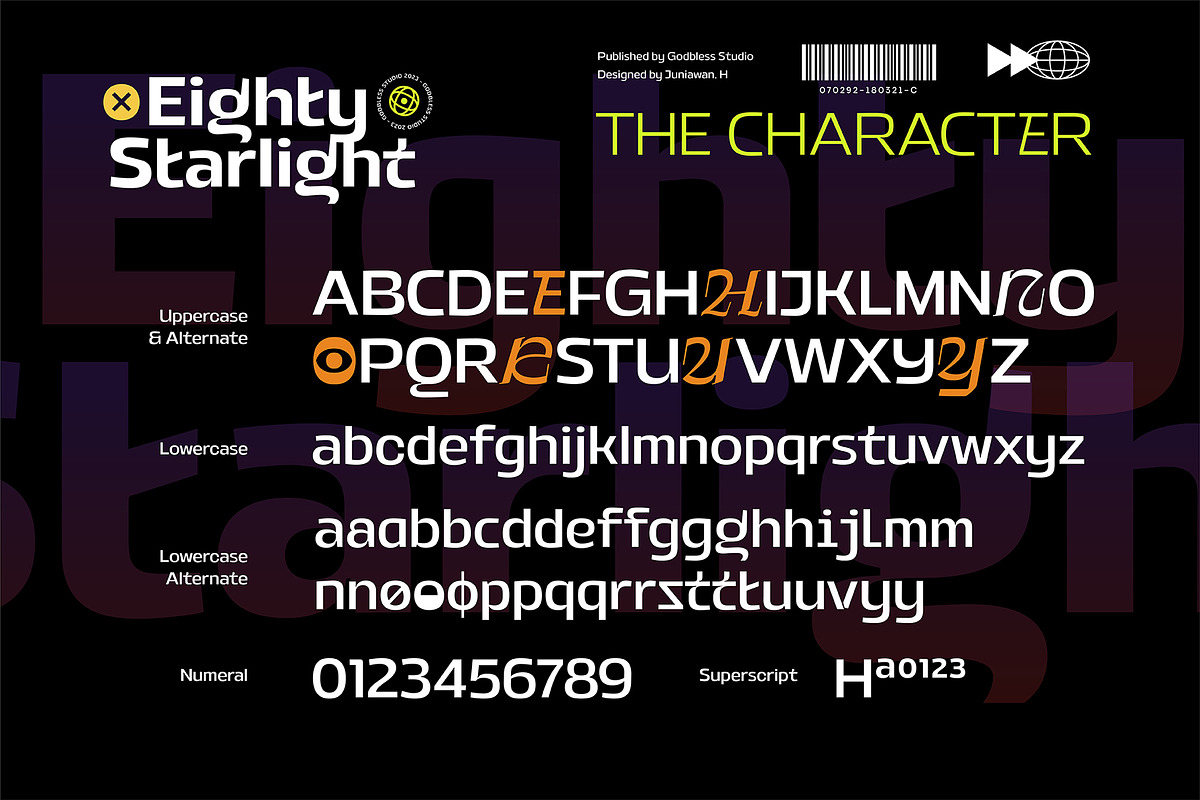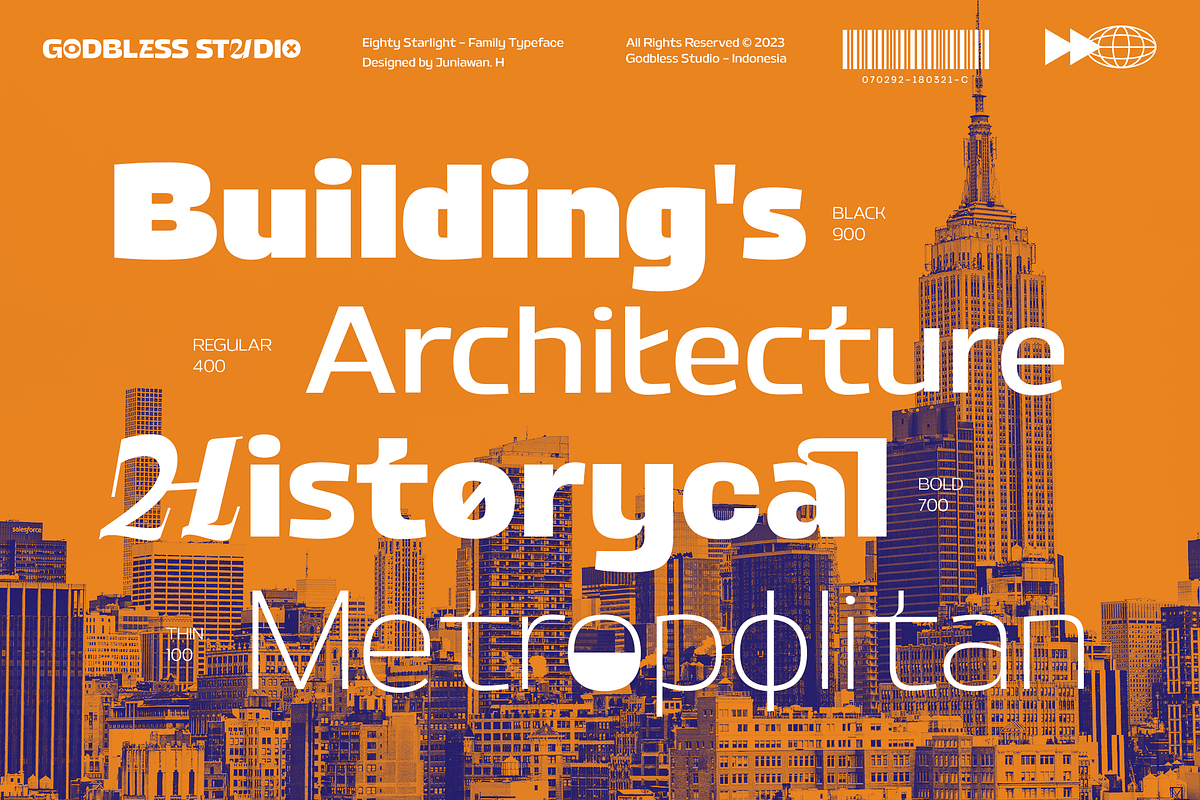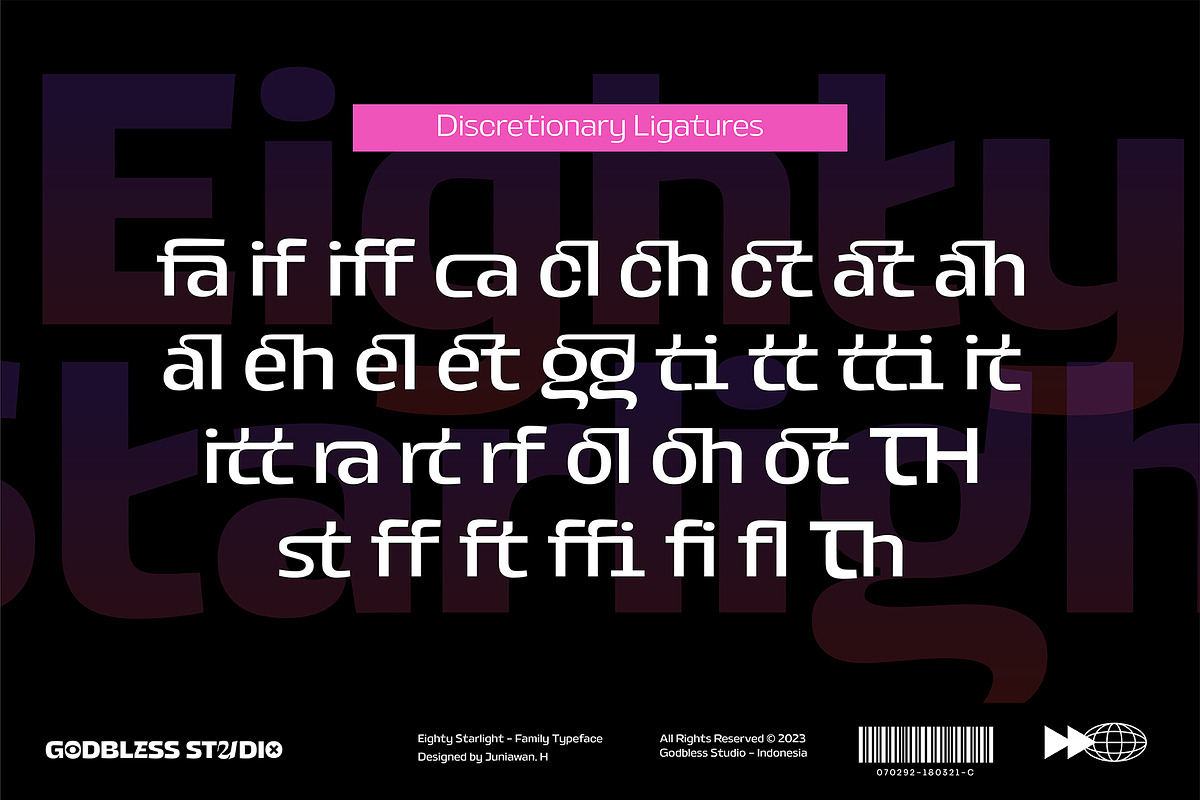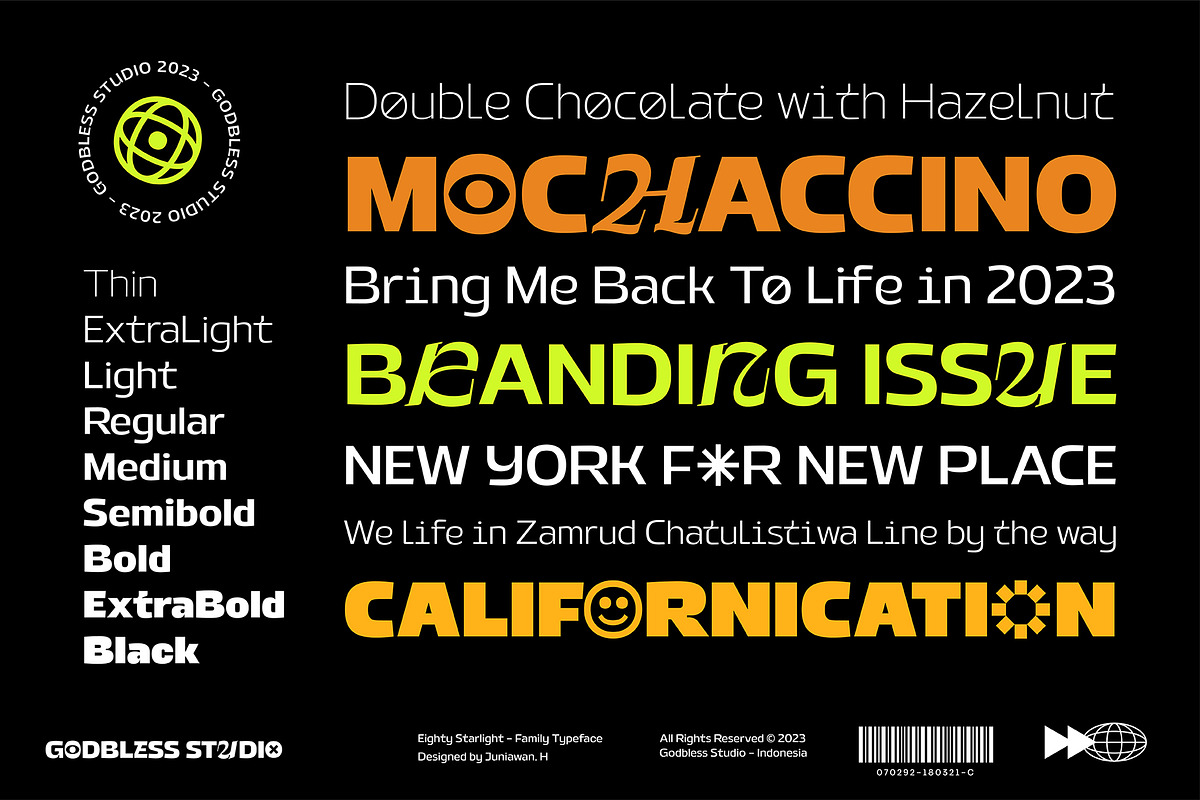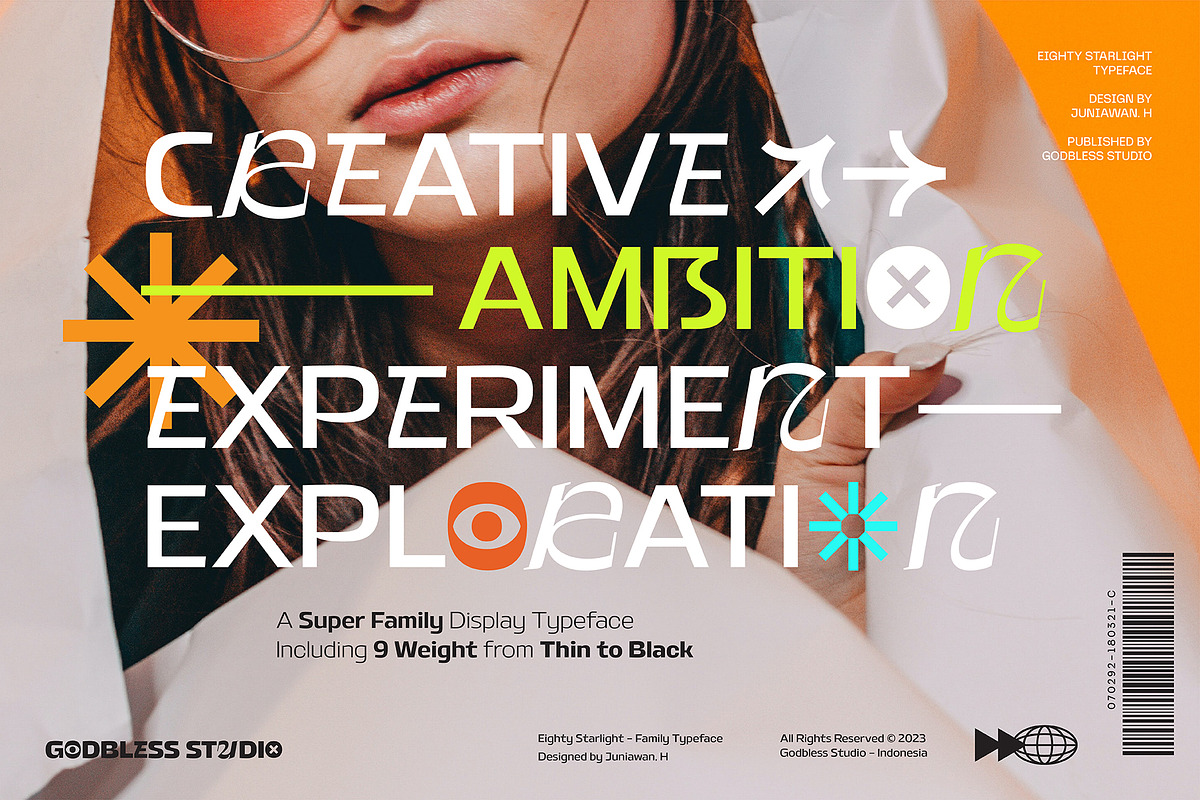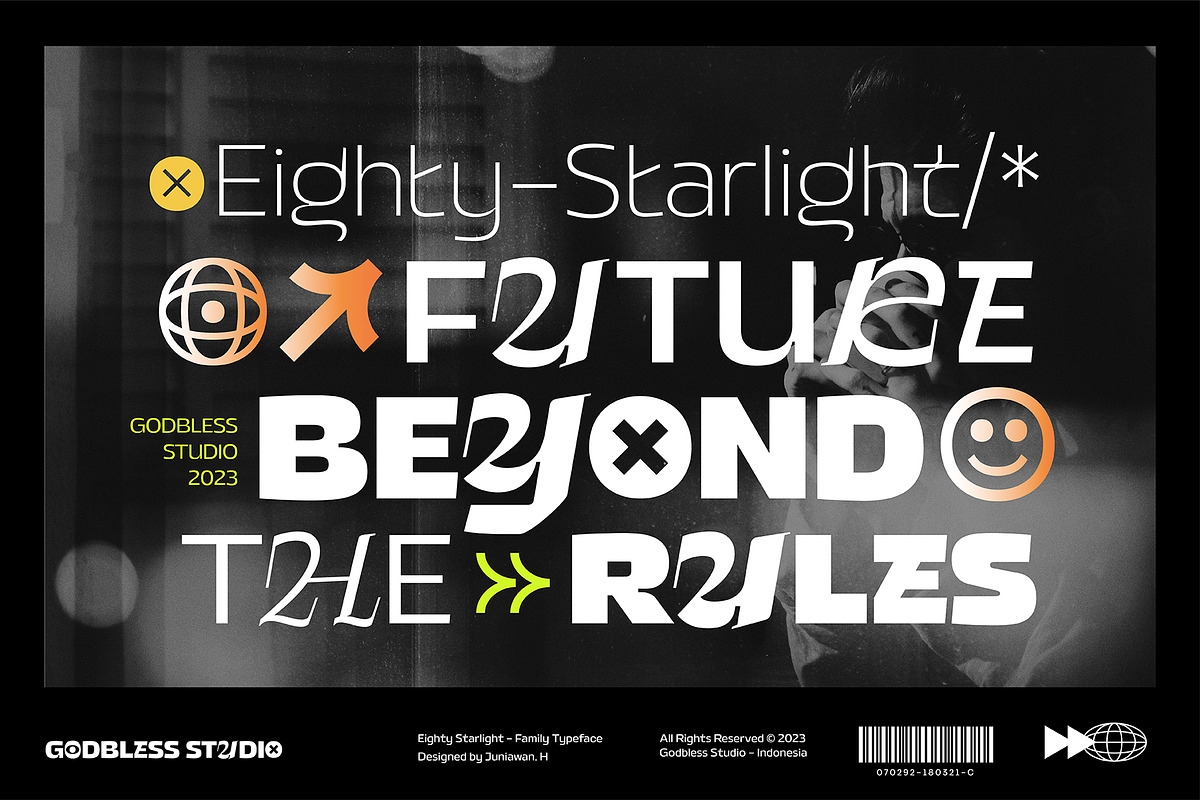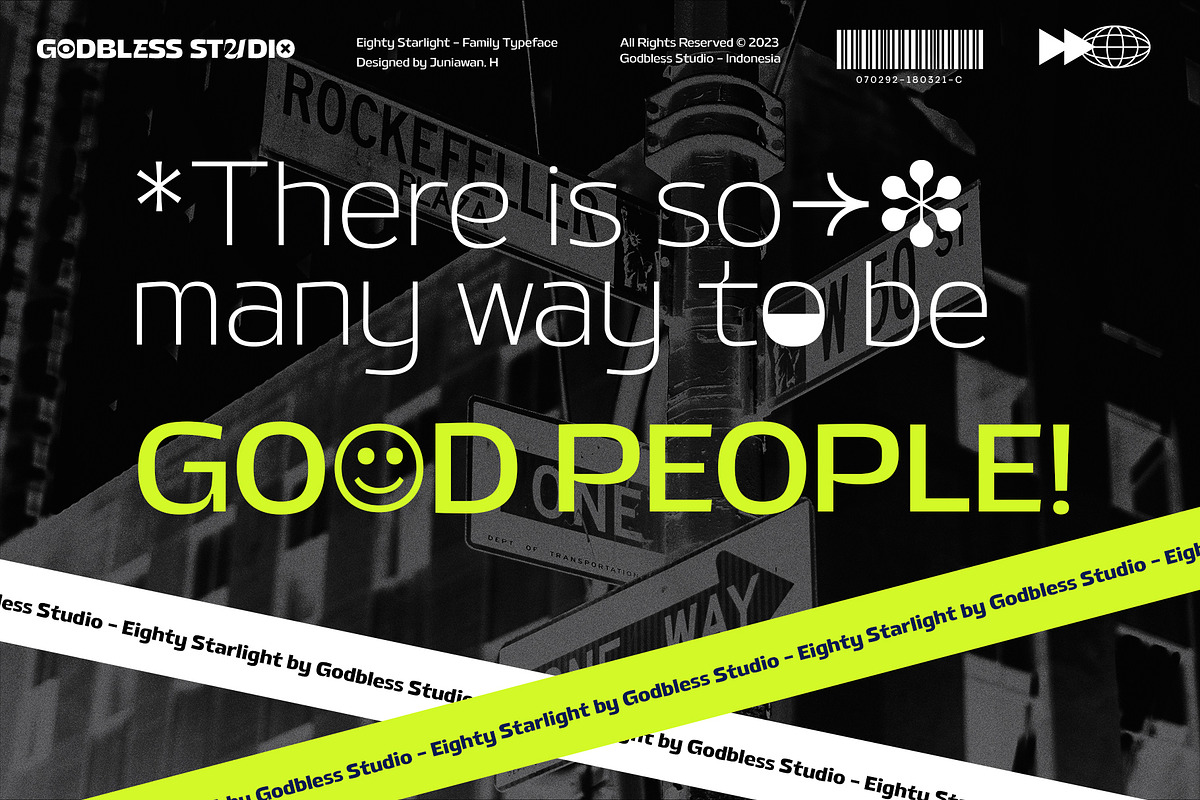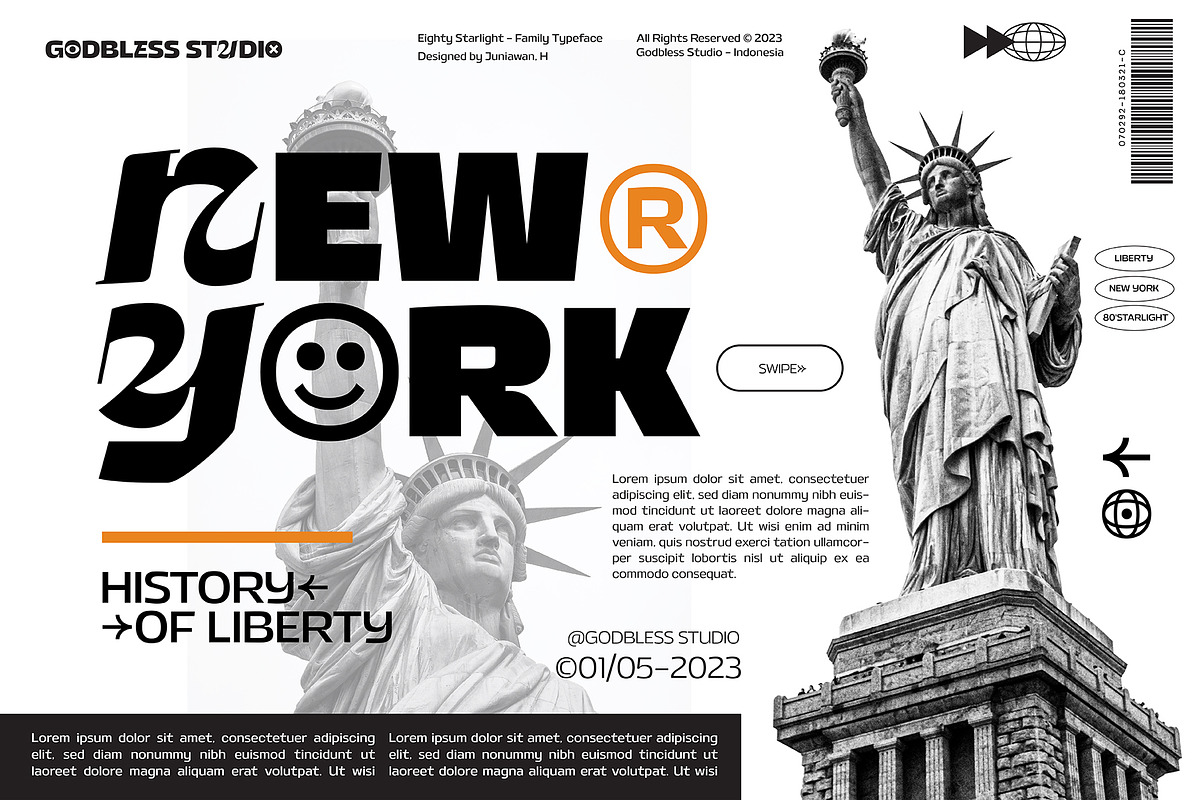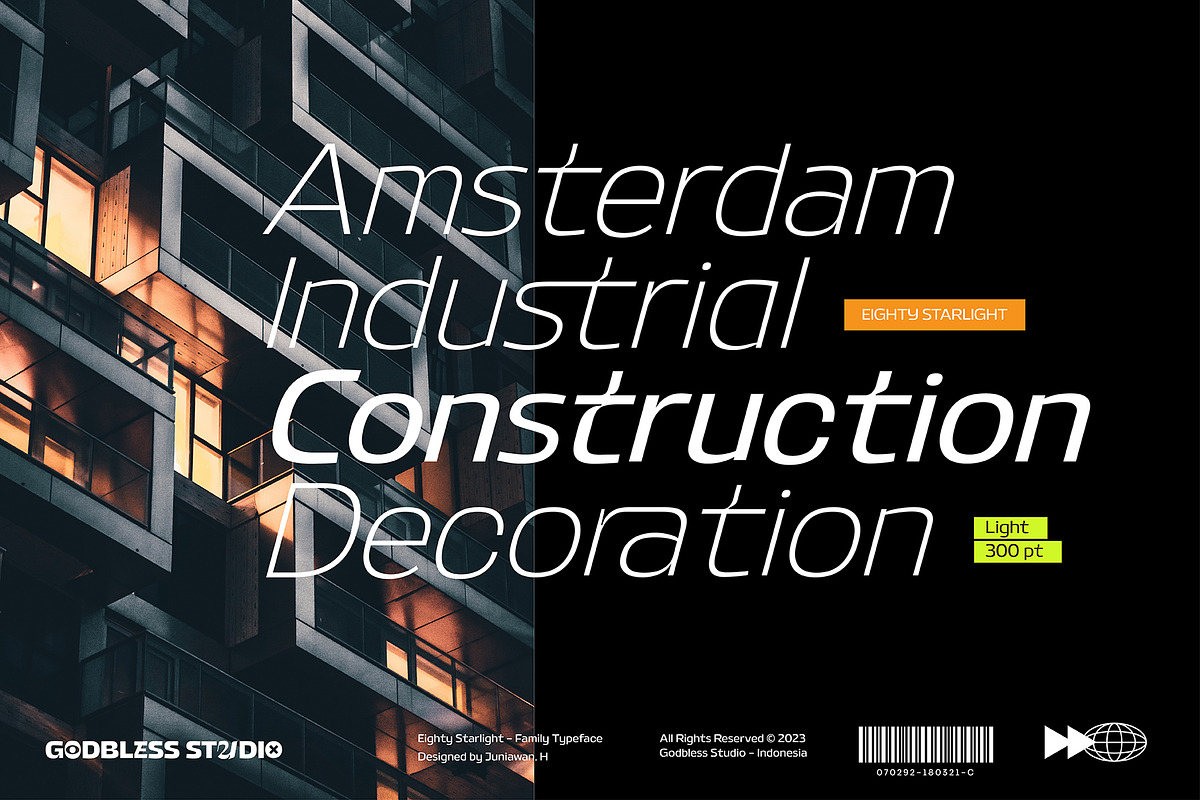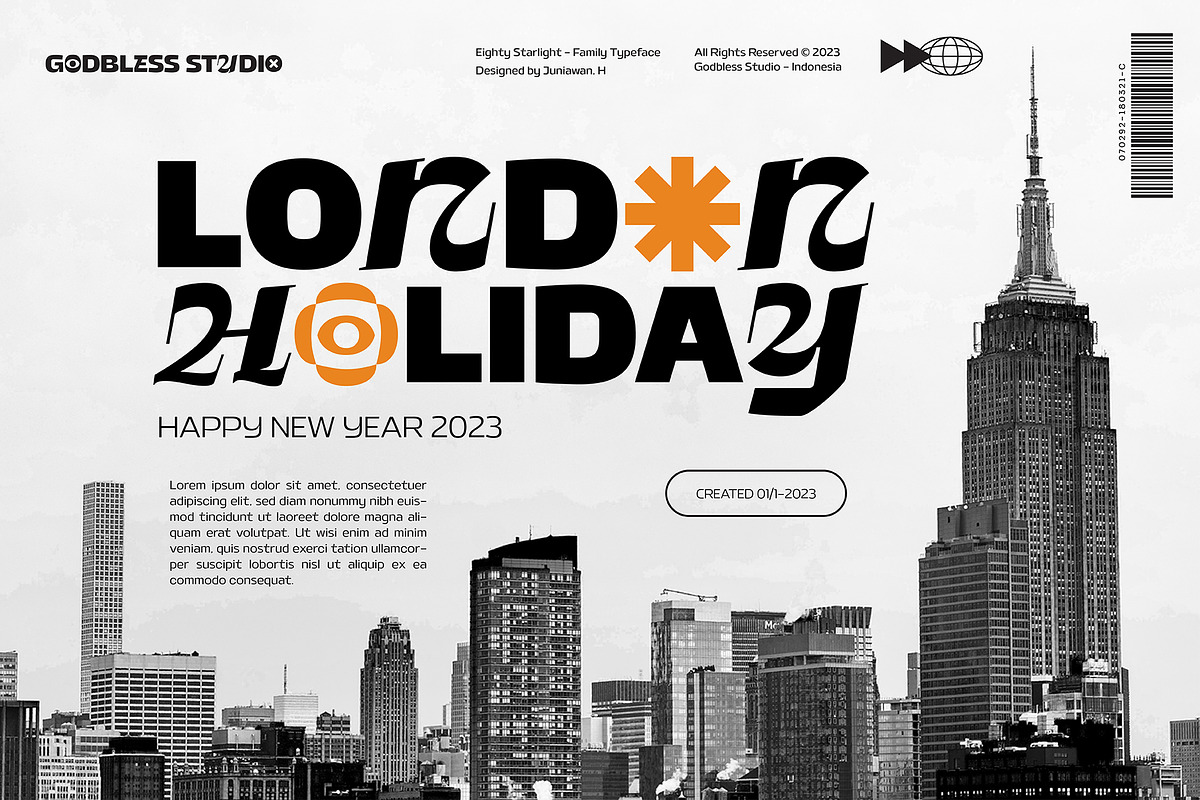
Eighty Starlight
Sneak a peak Eighty Starlight, a font with a futuristic and experimental concept created with a strong and charismatic character. following the current trend design style.
Eighty Starlight is made experimentally following a futuristic style recipe with alternate characters made with inktrap and display that makes this font more stylish and varied.
Eighty Starlight is a variable font that has 18 Font, 9 weights with 2 Variable from thin to black & Italic. also includes alternates that are more varied with variables.
Eighty Starlight is a versatile font system, designed primarily for display uses with a need of visual impact.
Variable :
- Thin & Italic
- Light & Italic
- ExtraLight & Italic
- Regular & Italic
- Medium & Italic
- SemiBold & Italic
- Bold & Italic
- ExtraBold & Italic
- Black & Italic
- Alternate Character
- Discretionary Ligature
- Symbol
- etc